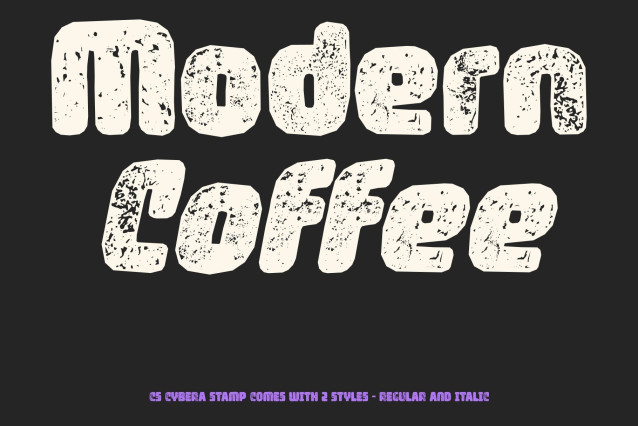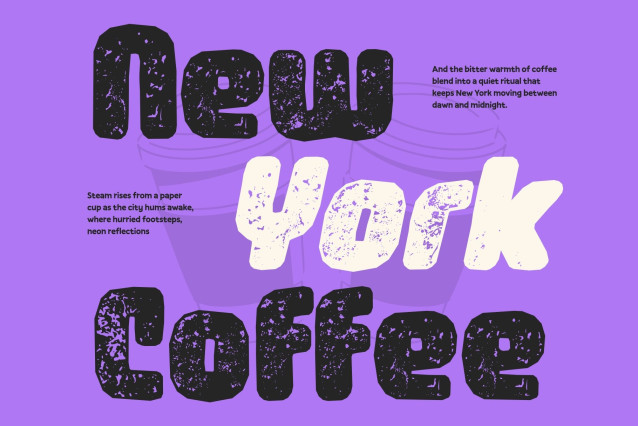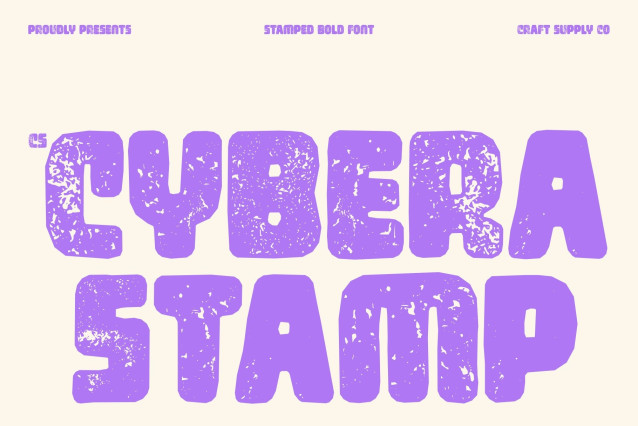
CS Cybera Stamp Font
CS Cybera Stamp – Bold Design with a Modern Pulse
Bold and Confident Display Design
This is a bold sans serif display font crafted to make an immediate visual impact. Its strong, confident letterforms command attention while the stamp effect introduces a textured, slightly distressed finish that adds depth and character. The result is a modern typeface that feels powerful, expressive, and visually engaging.
Rounded Shapes for a Fresh and Friendly Look
Soft, rounded contours balance the font’s bold structure, creating a friendly and approachable personality. The stamped texture gives the smooth shapes a subtle vintage edge, blending contemporary clarity with an artistic, tactile feel.